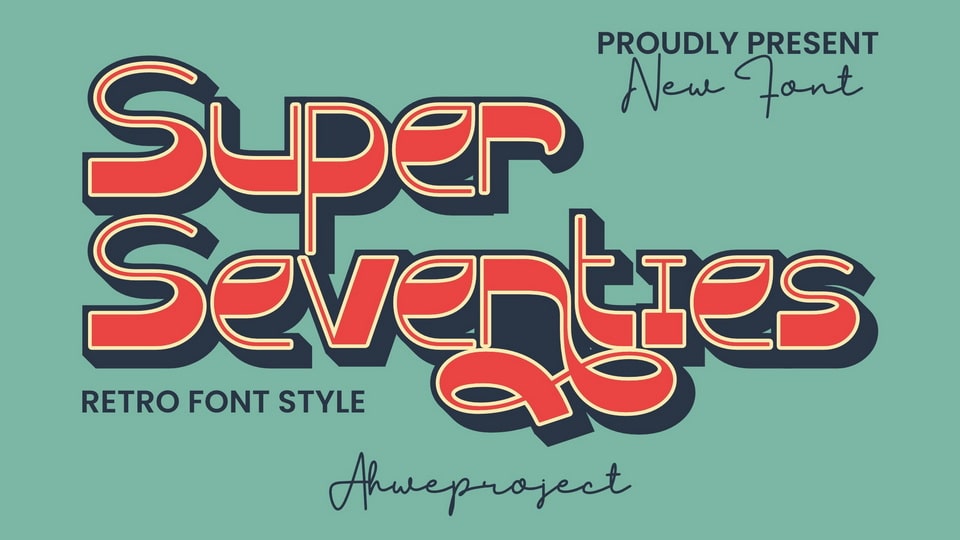
Download Super Seventies font, a reverse contrast retro typeface that encapsulates exquisite typographic coherence, ideal for an array of artistic ventures.